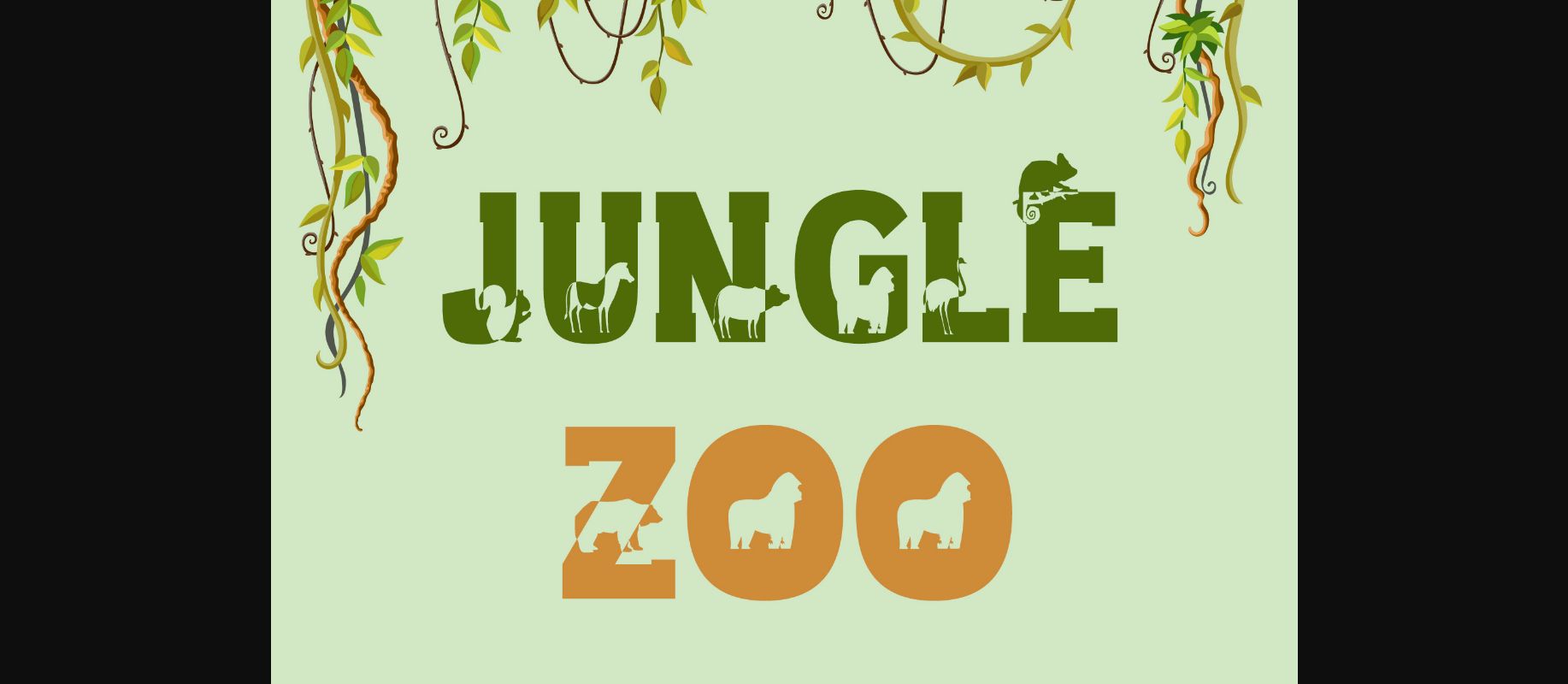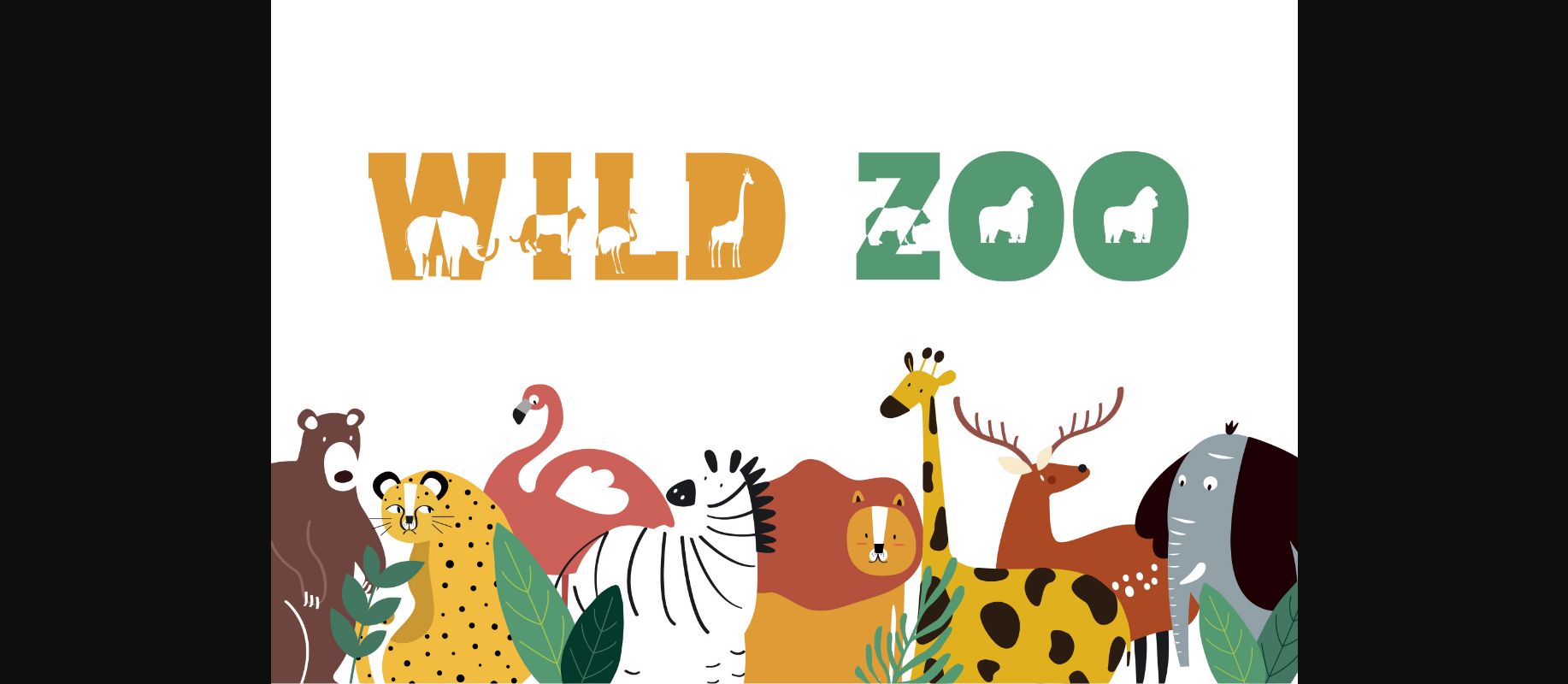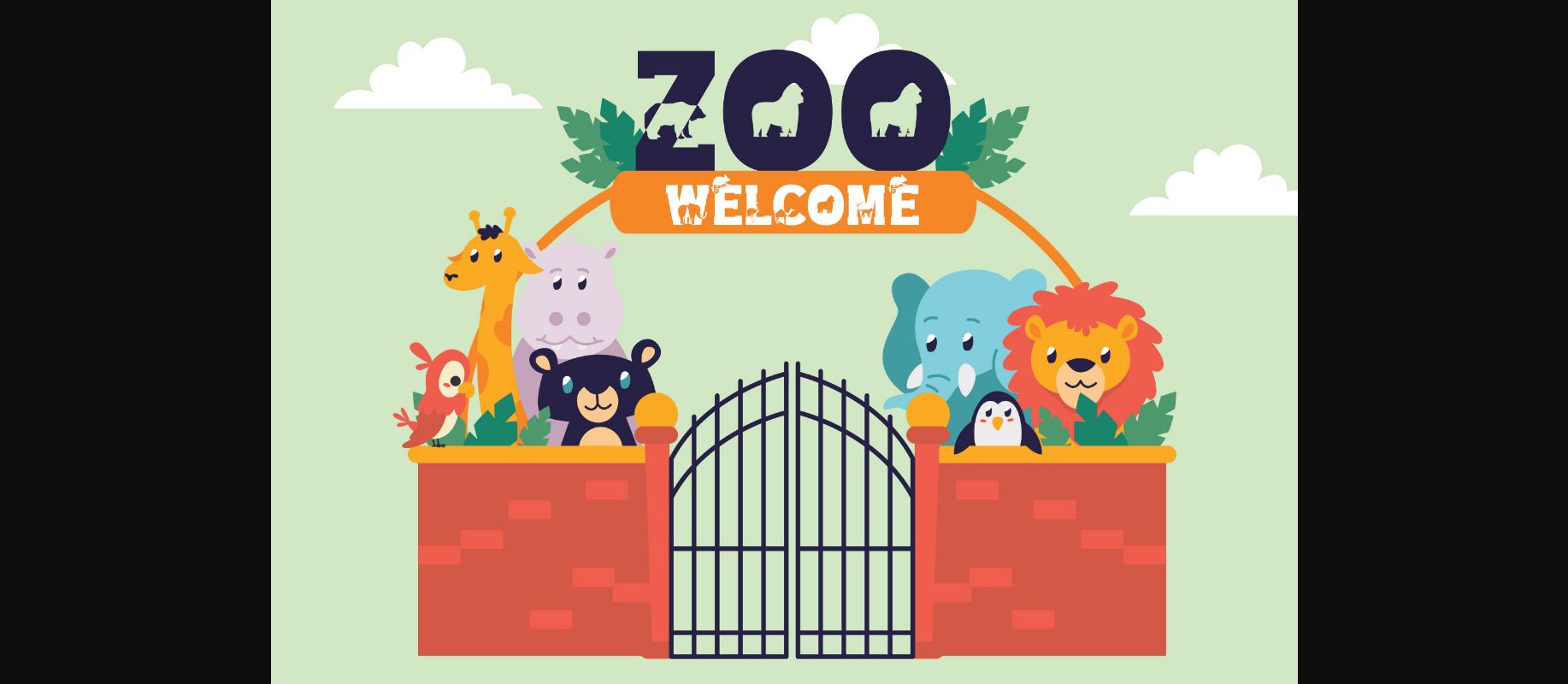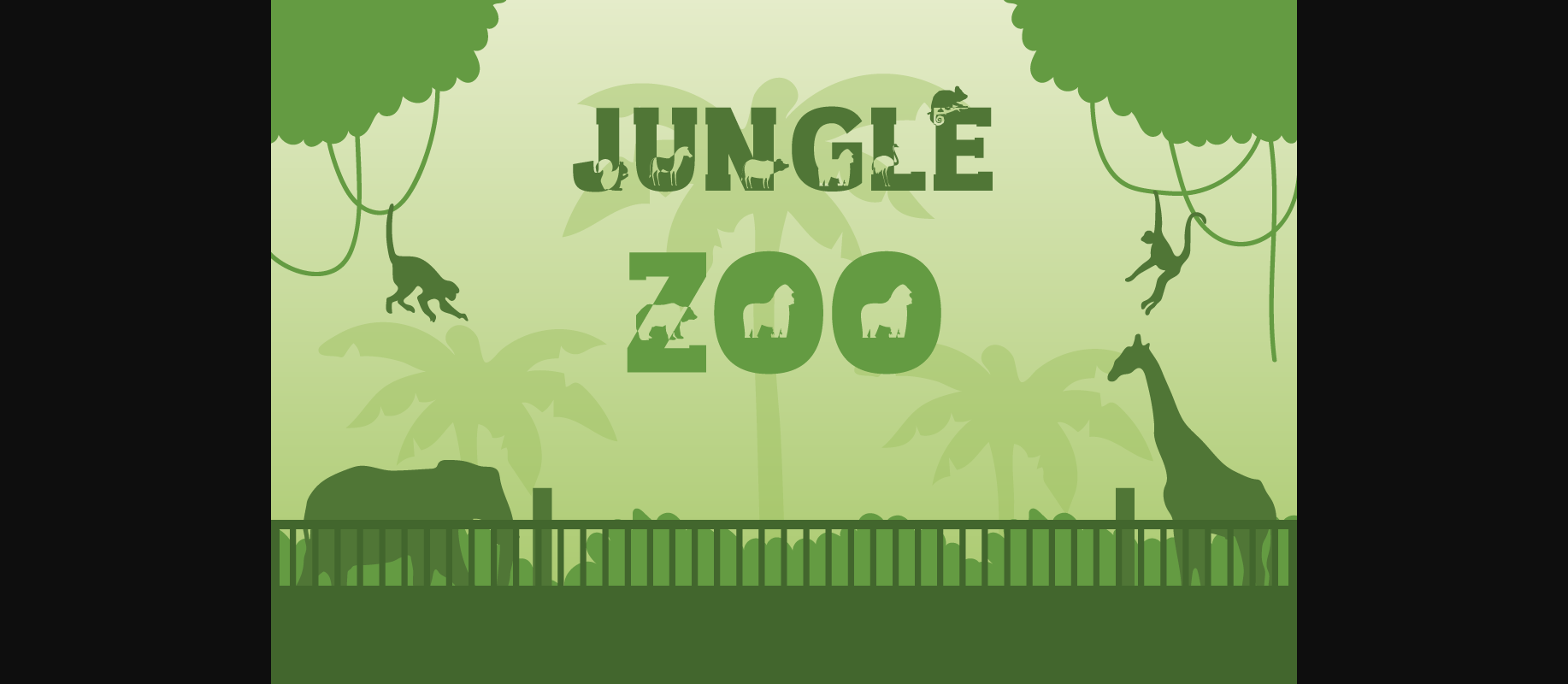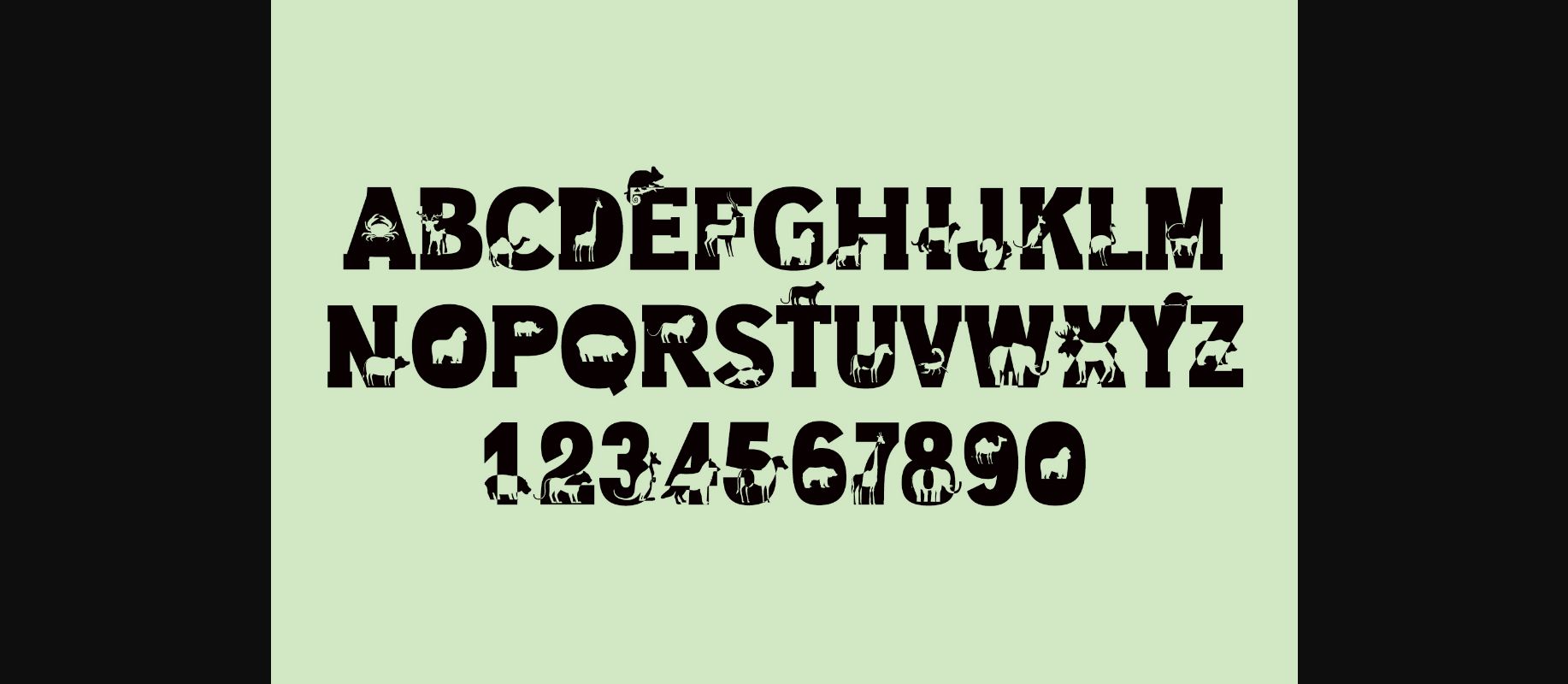
Jungle Zoo Font
About Jungle Zoo Font
Jungle Zoo is a bold and unique decorative font. Incredibly sweet and wild, this font is ideal for each of your children or school designs.